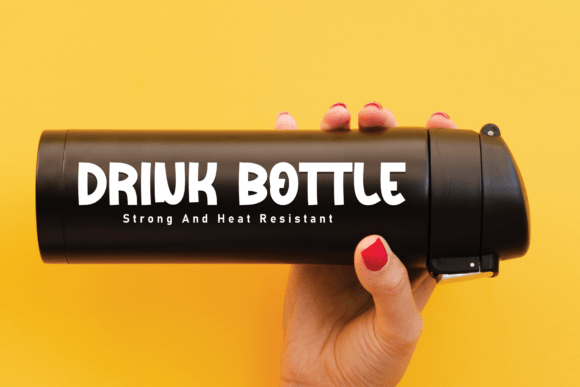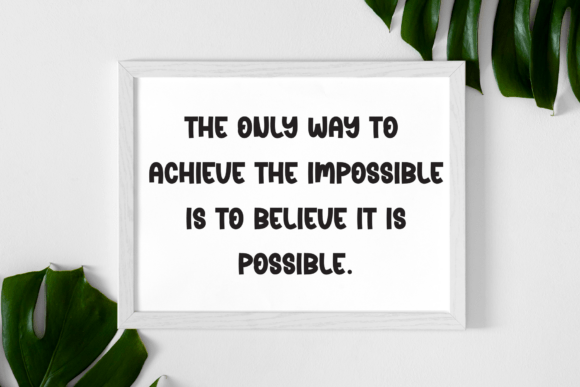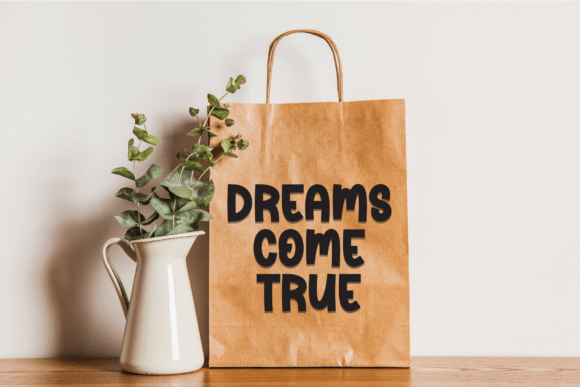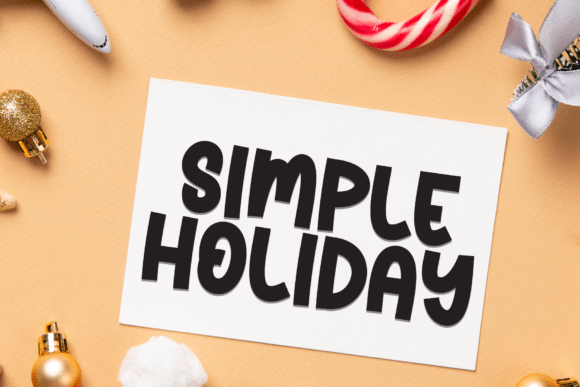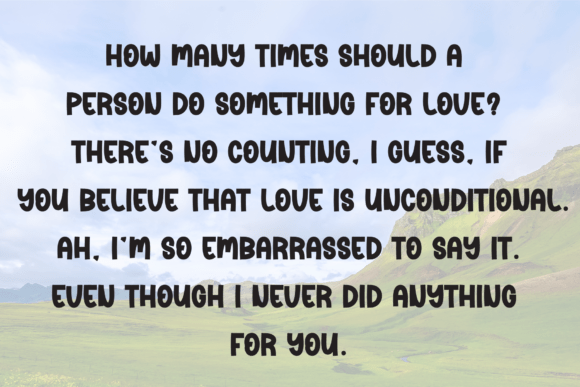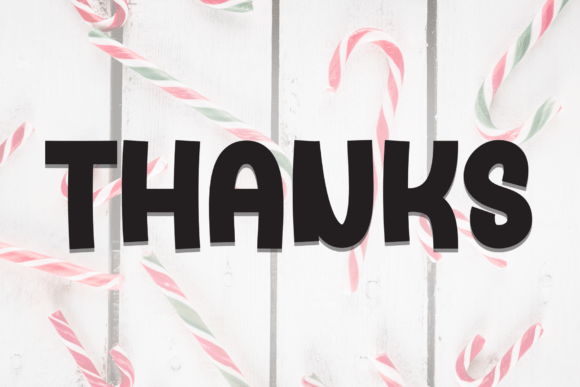
Introducing Candy Cane Font: The Sweetest Addition to Your Design Projects
Are you looking for a font that adds a touch of whimsy and charm to your designs? Look no further than the delightful Candy Cane Font! This affectionate handwritten display font is perfect for designers and crafters who want to infuse their projects with a sense of joy and playfulness. In this article, we’ll explore the unique features of Candy Cane Font and how it can elevate your designs to the next level.
Handwritten fonts have a way of capturing the essence of genuine emotions and sentiments. They add a personal touch to any design, making it more relatable and engaging. Candy Cane Font is no exception. With its sweet and charming persona, this font is sure to make your designs stand out from the crowd. Whether you’re creating wedding invitations, greeting cards, or any other type of design project, Candy Cane Font is the perfect choice.
What Makes Candy Cane Font Special?
Candy Cane Font is more than just a font – it’s an artistic expression. Every stroke is a testament to the creativity and warmth that goes into crafting a truly unique design. This handcrafted gem is full of charisma and whimsy, making it the perfect addition to any design project. Here are just a few features that make Candy Cane Font special:
- Handwritten with love: Candy Cane Font is carefully crafted to capture the essence of genuine handwritten sentiments.
- Full of charisma and whimsy: This font is designed to add a touch of playfulness and joy to your designs.
- Perfect for wedding invitations and greeting cards: Candy Cane Font is ideal for creating beautiful and engaging designs for special occasions.
- Elevates any design project: Whether you’re creating a logo, brochure, or social media graphic, Candy Cane Font is sure to make your design stand out.
Using Candy Cane Font in Your Design Projects
Candy Cane Font is incredibly versatile and can be used in a variety of design projects. Here are just a few ideas to get you started:
- Wedding invitations: Add a touch of romance and whimsy to your wedding invitations with Candy Cane Font.
- Greeting cards: Create beautiful and engaging greeting cards for any occasion with Candy Cane Font.
- Logos and branding: Use Candy Cane Font to create a unique and memorable logo for your business or brand.
- Social media graphics: Add a touch of personality to your social media graphics with Candy Cane Font.
Tips for Getting the Most Out of Candy Cane Font
Here are a few tips for getting the most out of Candy Cane Font:
- Experiment with different colors: Candy Cane Font looks great in a variety of colors, so don’t be afraid to experiment and find the perfect hue for your design.
- Pair with other fonts: Try pairing Candy Cane Font with other fonts to create a unique and interesting design.
- Use it sparingly: While Candy Cane Font is beautiful, it can be overwhelming if used too much. Use it sparingly to add a touch of whimsy to your design.
Candy Cane Font is a truly unique and special font that can add a touch of joy and whimsy to any design project. With its sweet and charming persona, this font is sure to make your designs stand out from the crowd. Whether you’re a designer or crafter, Candy Cane Font is a must-have addition to your toolkit. So why wait? Experience the delightful charm of Candy Cane Font for yourself and elevate your designs to the next level!